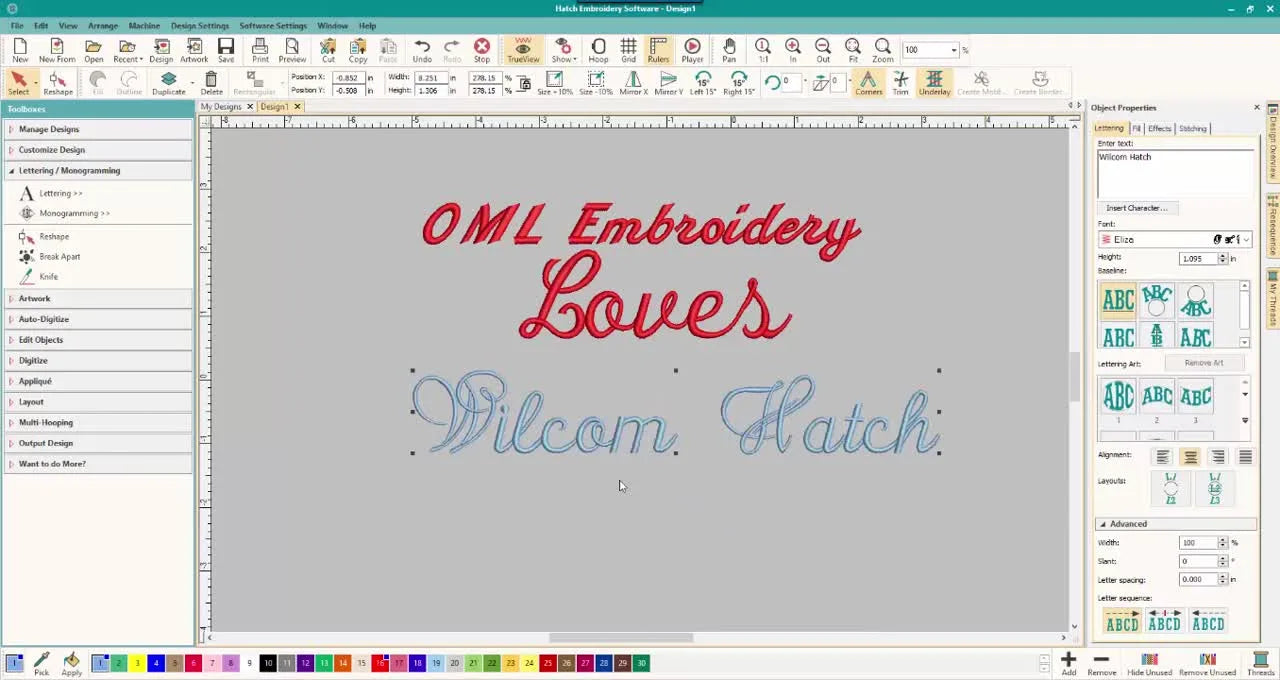
Script fonts are the "Ferrari" of the embroidery world—they look expensive and sleek, but if you don't know how to drive them, you will crash.
If you’ve ever watched a beautiful script preview on-screen and then stitched it out only to get chunky loops, closed counters (the holes in "e" or "a"), or unreadable "spaghetti," you’re not alone. The friction usually lies between the digital promise and the physical reality.
The good news: The three fonts in Hatch Font Pack 1 that Sue demonstrates—Memo Script, Handy Script, and Eliza—are pre-digitized. This means a human professional, not an algorithm, engineered the stitch angles and density. However, even the best engineering fails if you violate the laws of physics.
Below is the Master Class Workflow, calibrated with 20 years of production experience to ensure your machine yields professional results.
Calm the Panic: Pre-Digitized Hatch Font Pack 1 Script Fonts Usually Fail for One Reason—Size
When script lettering looks rough, most beginners blame the thread tension or the machine’s timing. While those factors matter, 90% of script failures are scaling errors.
In commercial embroidery, every font has a "Sweet Spot." When you shrink a pre-digitized font below its engineered limit, the satin columns become too narrow for the needle to penetrate without deflecting. A standard 40wt thread is roughly 0.4mm thick. If you scale a column down to 0.8mm, you are asking for two threads to occupy the same space simultaneously. The result? Bird nesting and thread breaks.
Sue’s key point is simple: Hatch provides specific Minimum and Maximum sizes. Respecting these isn't a suggestion; it's a safety requirement for your machine.
Sue starts by opening the Lettering tools. This is the "Digital Prep." But before you click that mouse, you must perform the "Physical Prep."
The Golden Rule of Lettering: You cannot fix bad hooping with good software settings.
Before you type a single letter, define your Physical Constraints:
- The Substrate: Is it a stretchy dri-fit shirt (unstable) or a canvas tote (stable)?
- The Stabilizer: For script, you almost always need a Cutaway stabilizer. Tearaway allows too much movement, causing the letters to drift and gap.
- The Hooping Mechanism: Traditional hoops rely on friction, which can crush the pile of towels or leave "hoop burn" on delicate polyesters.
Memo Script in Hatch: The Clean, Readable Script for Small-to-Medium Lettering
Sue’s first demo is Memo Script. She types “OML Embroidery” and resizes it.
Memo Script is your "Workhorse." It has open counters and relatively even column widths, making it the safest choice for beginners or challenging fabrics (like pique polo shirts).
The text should look crisp. If you see jagged edges on screen, push Shift + 0 in Hatch to view it in "TrueView" (simulated stitches).
Expert “Why this works”
Memo Script has high "Pull Compensation" built-in. When a machine stitches a column, the thread pulls the fabric in, making the column narrower. Memo Script is digitized slightly wider to combat this. It is the forgiving font you should use when you are unsure about your stabilization.
Handy Script in Hatch: A Casual, Loopy Look When You Need a Narrow Baseline
Sue types “Loves,” demonstrates a correction, and selects Handy Script.
Handy Script is "Casual Modern." It mimics handwriting. However, the loops (ascenders and descenders) are physically vulnerable.